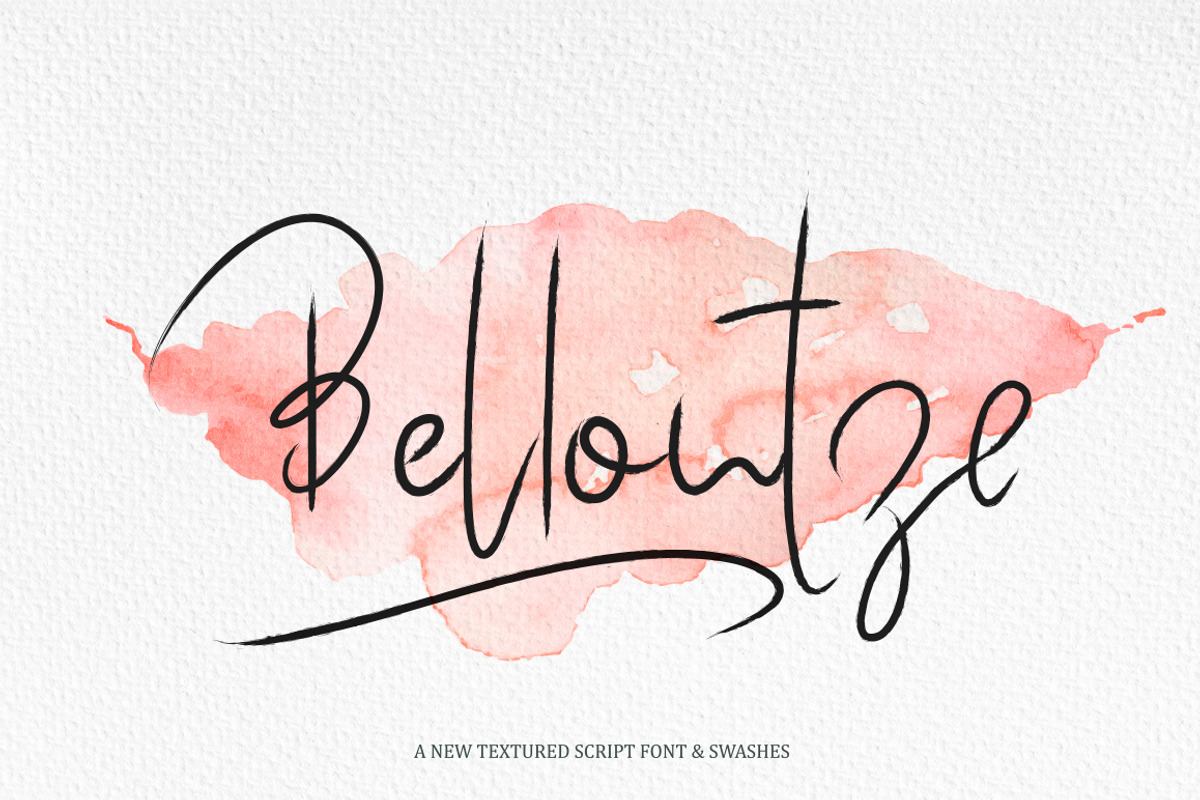
Bellontze.Textured script & swashes Free Download
Bellontze - Textured Script & Swashes Free Download
The Bellontze - Textured Script & Swashes Free Download is a beautifully crafted script typeface that combines elegant curves with a unique textured finish. Perfect for creating stylish logos, invitations, branding, and other creative projects, this font adds a rich, vintage feel to your designs. Please note, for commercial use, a license must be purchased. You can download it for free for testing purposes.
With its textured strokes and decorative swashes, the Bellontze - Textured Script & Swashes Free Download offers a sophisticated and artistic touch. Whether you're working on a high-end branding project, wedding invitations, or social media content, this font gives your designs a distinctive and premium look.